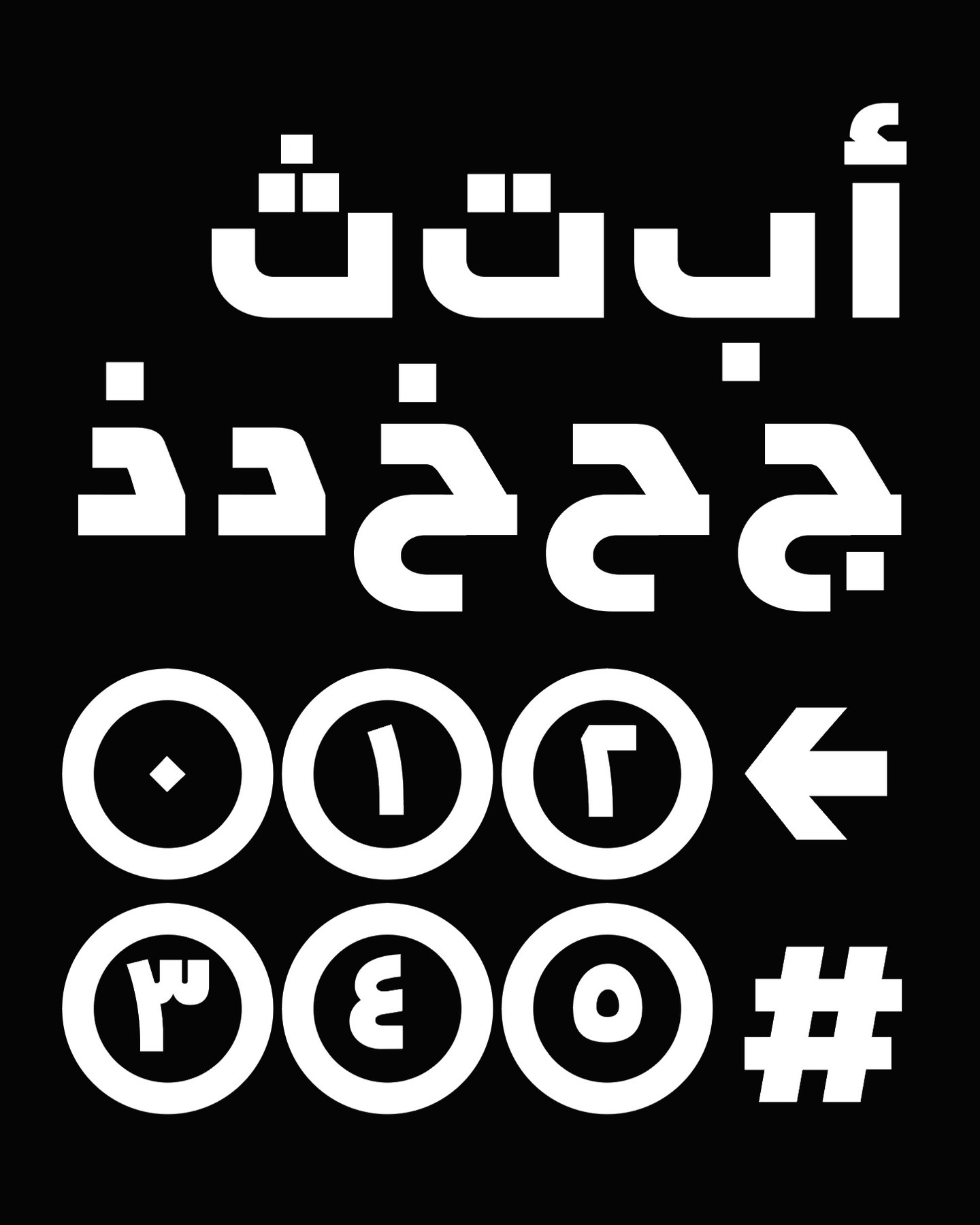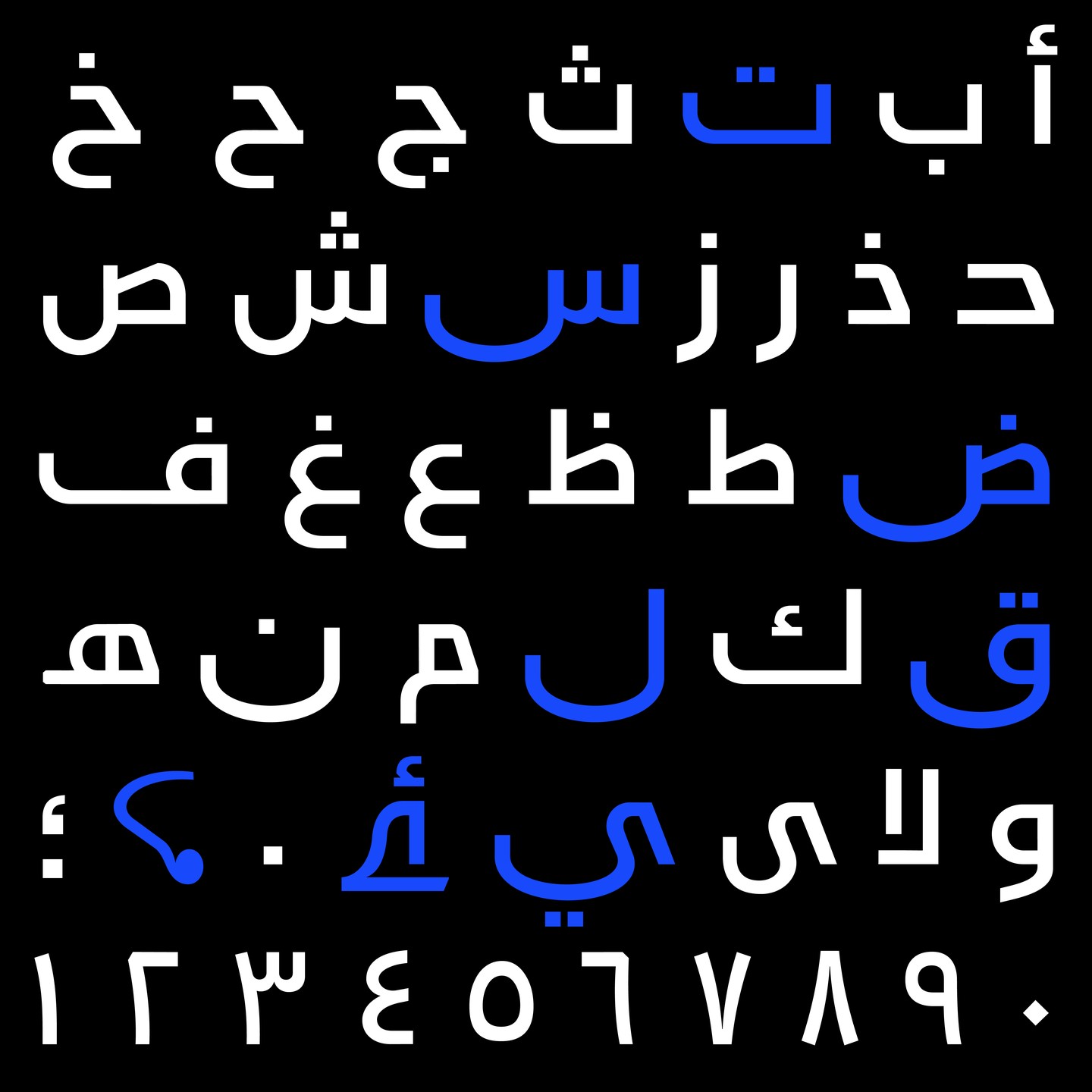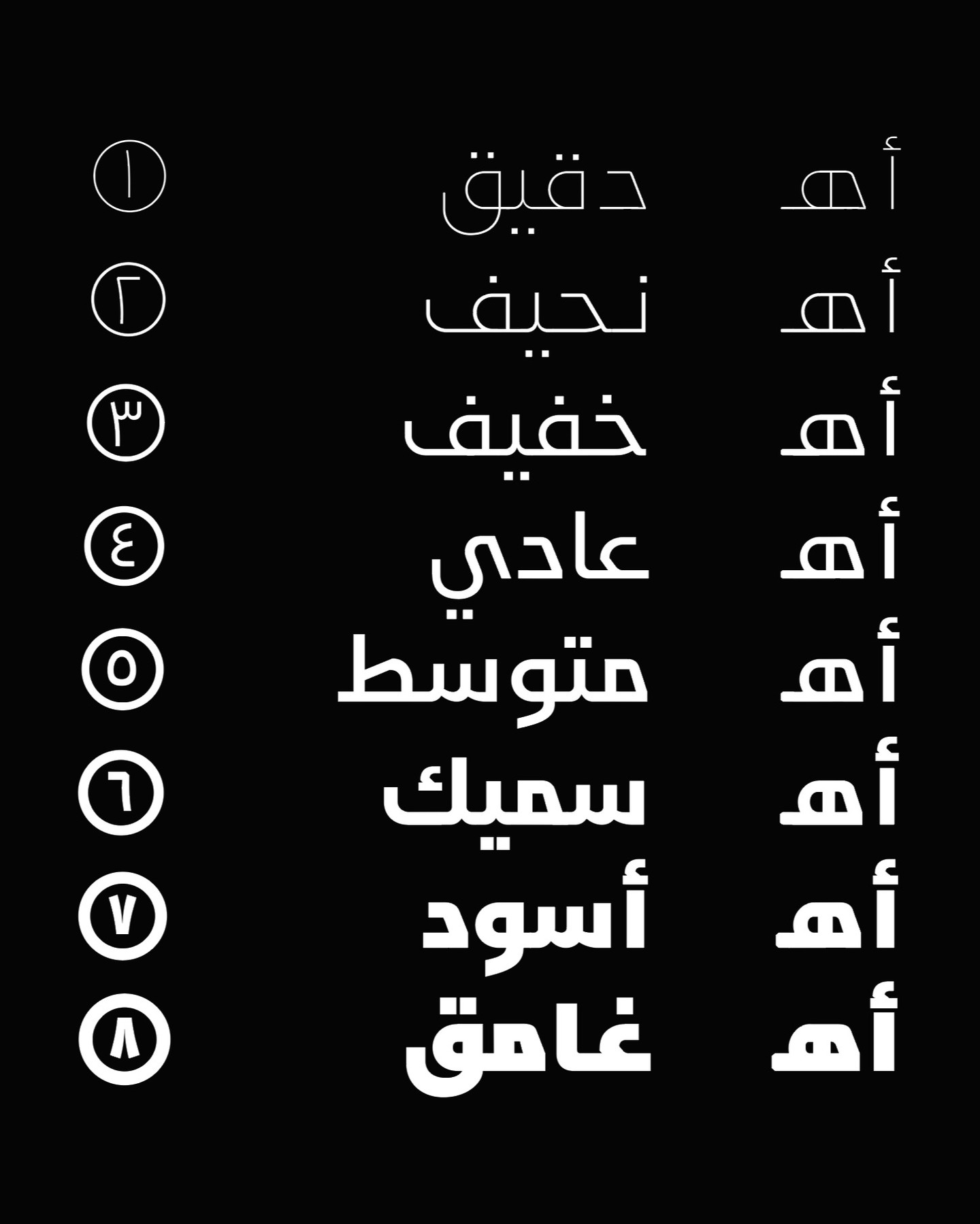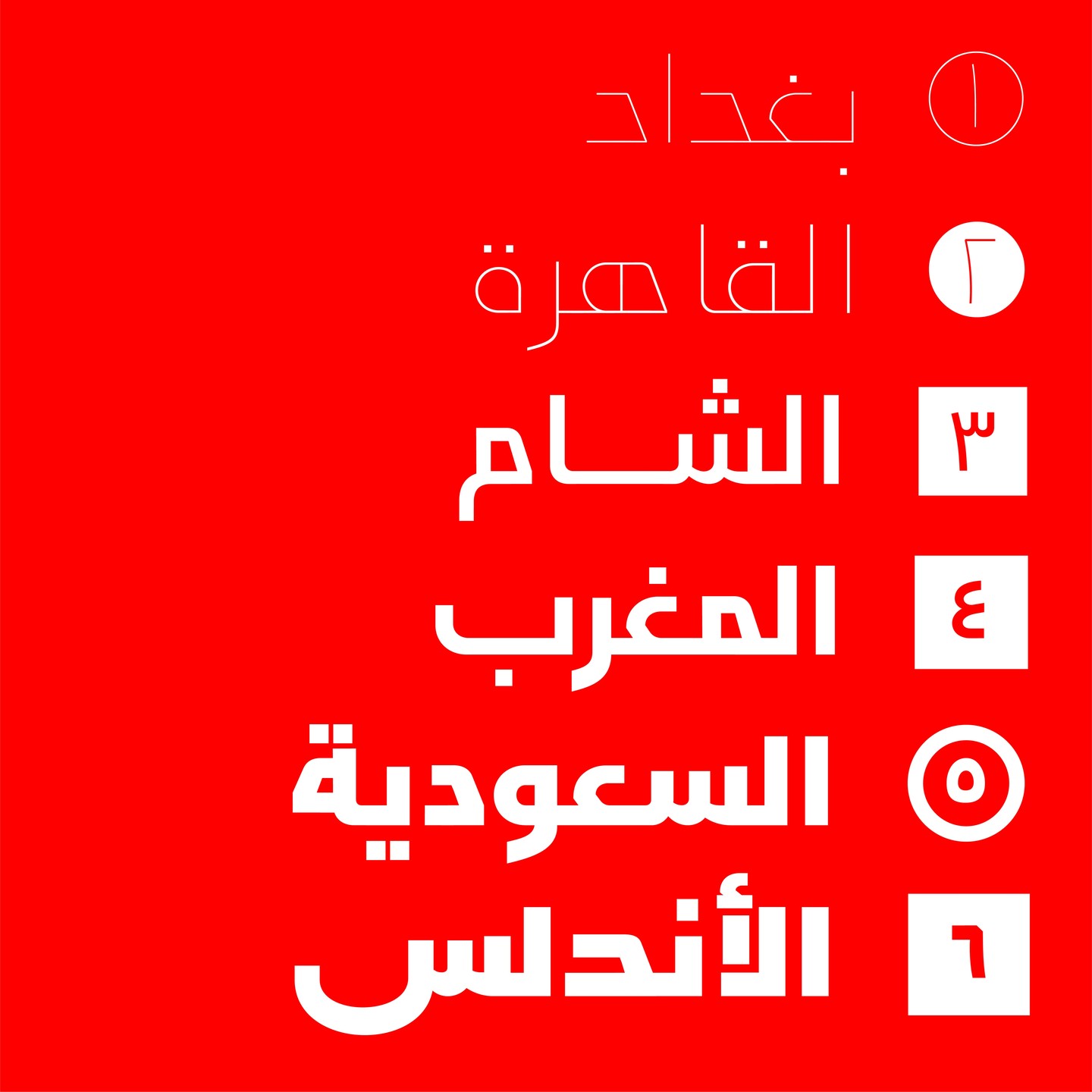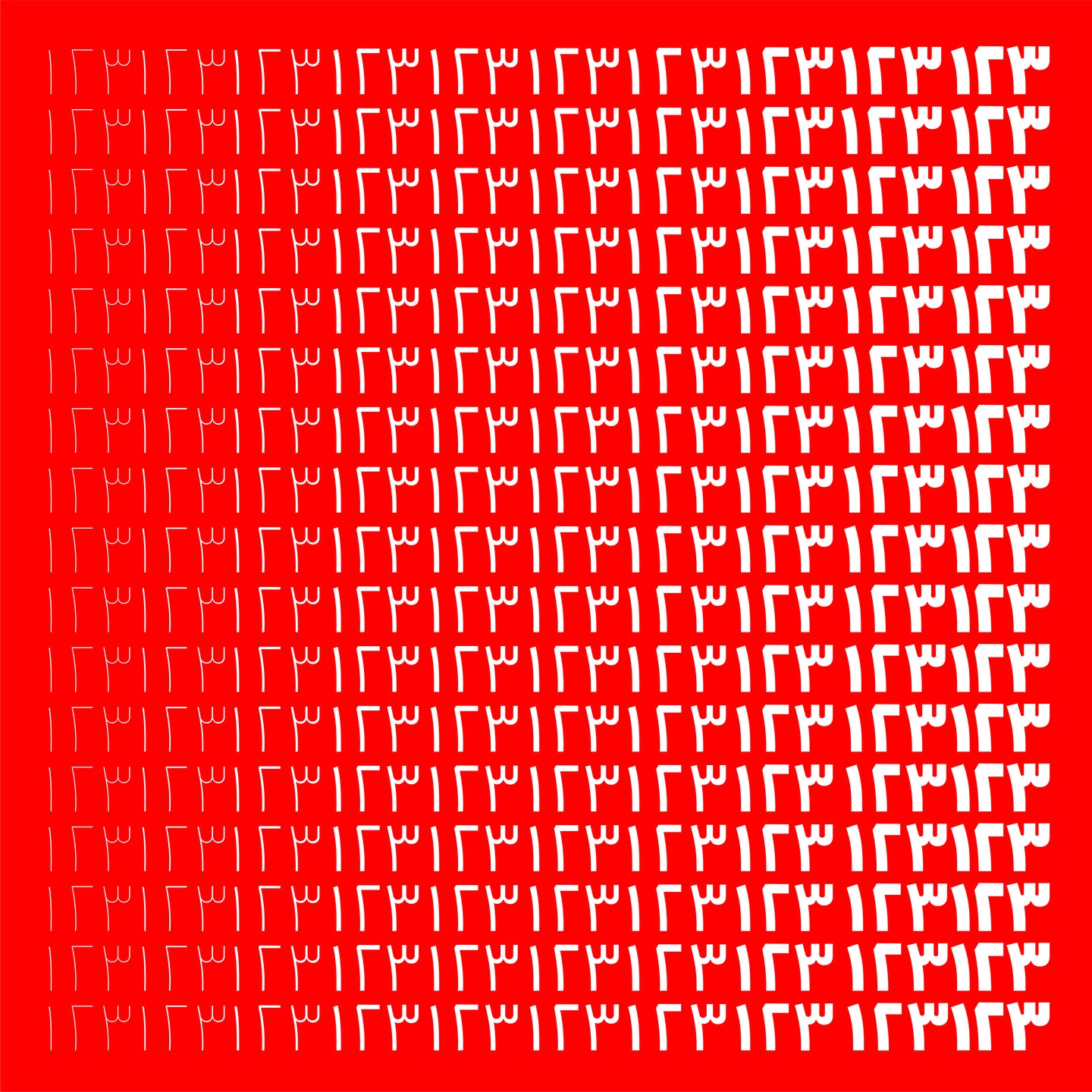
HT Arkan
أركان هو خط عربي هندسي حاد، صُمم للعلامات التجارية والتصميمات الحديثة.
"HT Arkan" is an Arabic branding typeface created by Muhammed Hadi. The font family includes nine weights, from Hairline to Ultra Black, providing versatility for design projects across various applications. Combining Naskh and Kufi styles, it is ideal for headlines, UI, advertising, and branding, exuding a friendly and modern aesthetic.
Styles: 9 Style
Designer: Muhammed Hadi
Foundry: HadiType Foundry